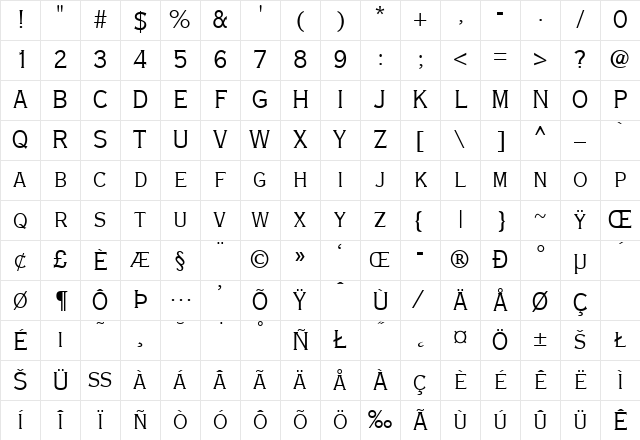
Complete Copperplate-TwentyNineAB Regular glyph index. Displaying only characters natively supported by Copperplate-TwentyNineAB Regular font.
Copperplate-TwentyNineAB is a composed and adaptable typeface that performs quietly and consistently across a wide range of design contexts.